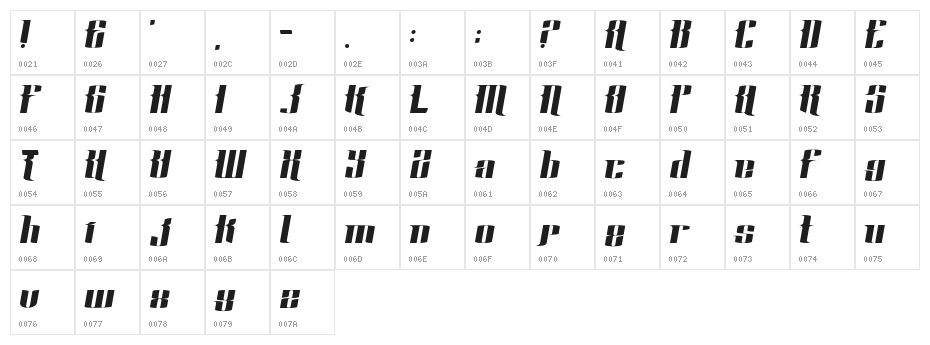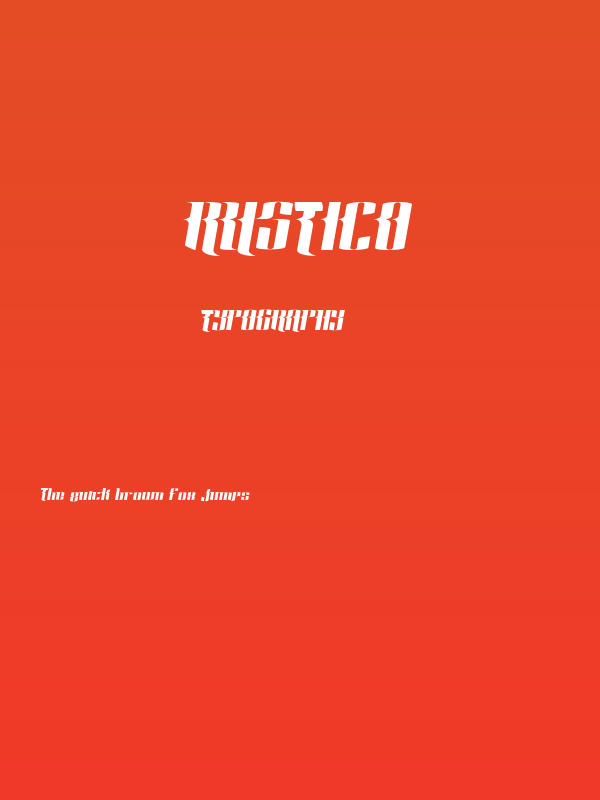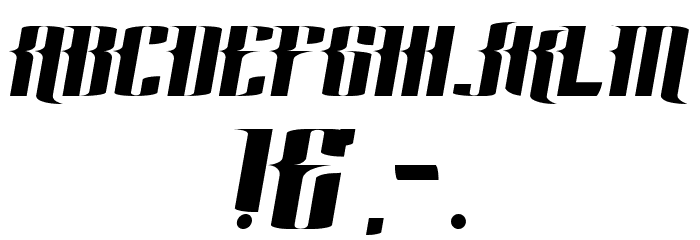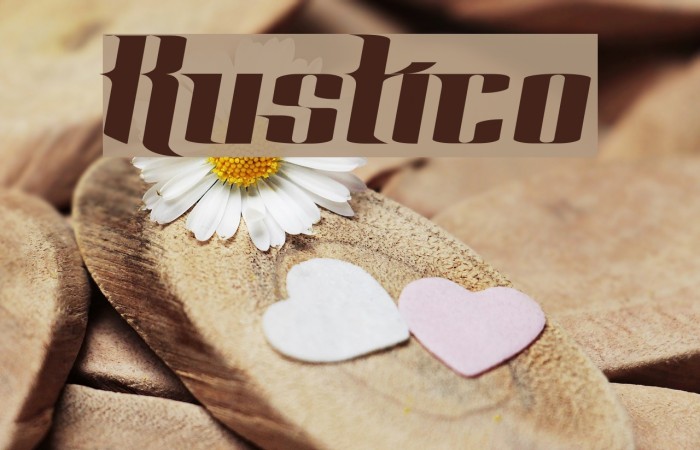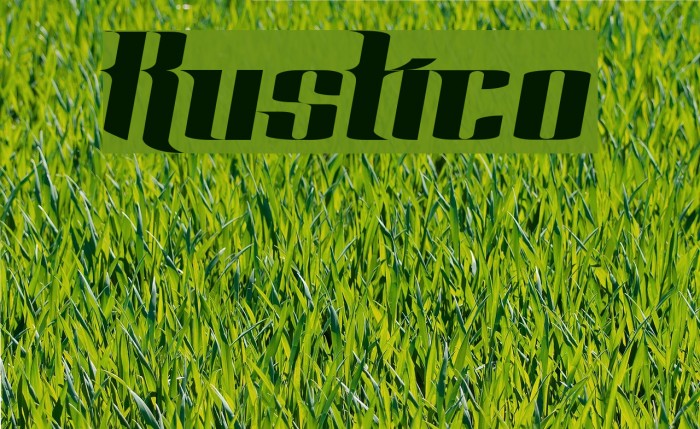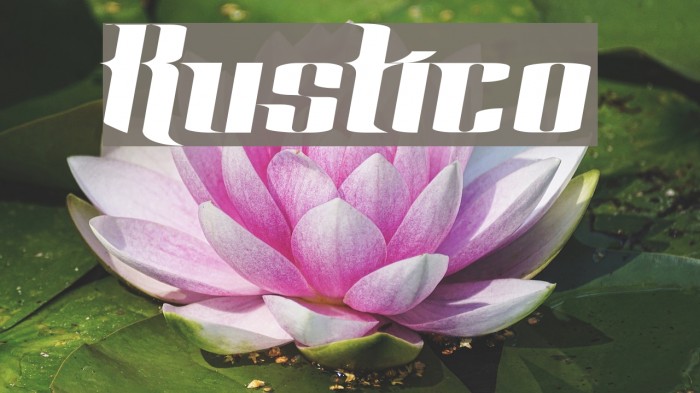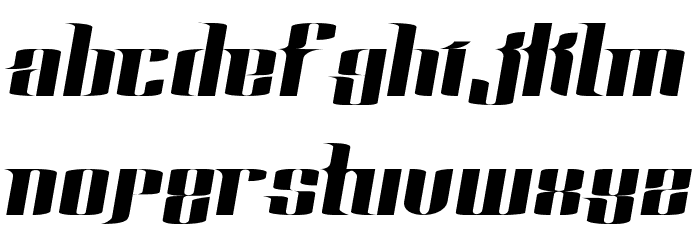
Rustico Font
Rustico Description
This font features a bold and dynamic style with sharp, angular edges and a strong presence. The uppercase letters are particularly striking, with a sense of movement and energy that suggests speed and modernity. The lowercase letters maintain this dynamic feel, though they are slightly more subdued. The numerals and special characters are consistent with the overall design, providing a cohesive look. The font's unique style makes it suitable for projects that require a bold statement, such as branding, posters, or headlines.
| Proposed Projects | Ideal for branding, posters, headlines, and any design requiring a bold statement. |